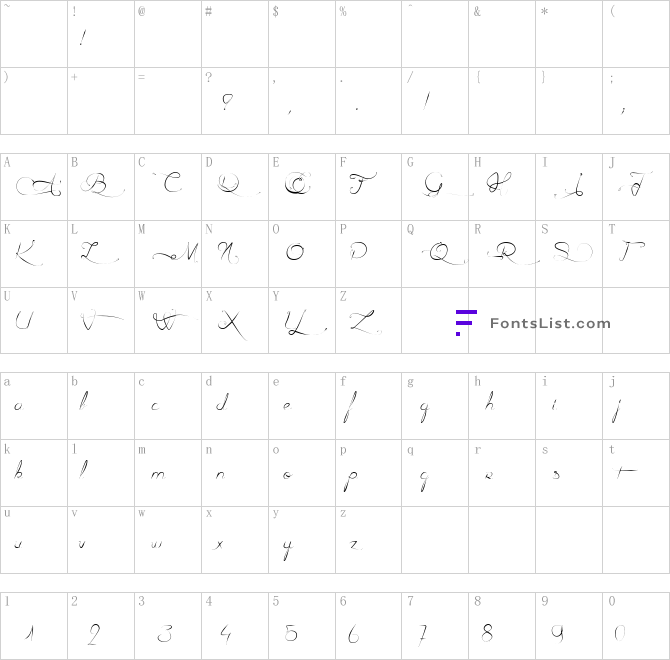
- Font Name:Ail et Fines Herbes
- Full Name:Ail et Fines Herbes Italic
- PostScript:AiletFinesHerbes-Italic
Ail-et-Fines-Herbes-Italic.ttf is a very beautiful artistic font, Ail-et-Fines-Herbes-Italic.ttf is widely used in the design and printing of various books and pictures,Ail-et-Fines-Herbes-Italic.ttf has a strong visual impact,Ail-et-Fines-Herbes-Italic.ttf is a commonly used font in newspapers, magazines and books, and is used in posters, e-commerce Poster design, store design, logo design, font design and other fields.Ail-et-Fines-Herbes-Italic.